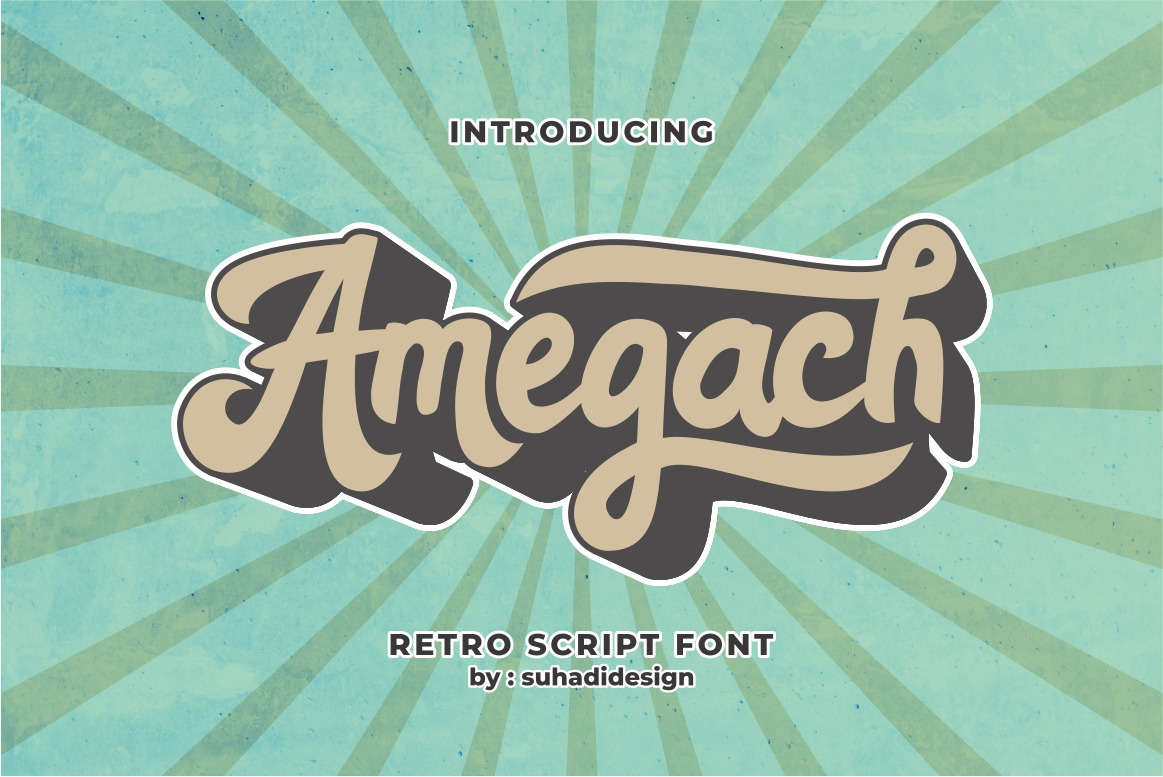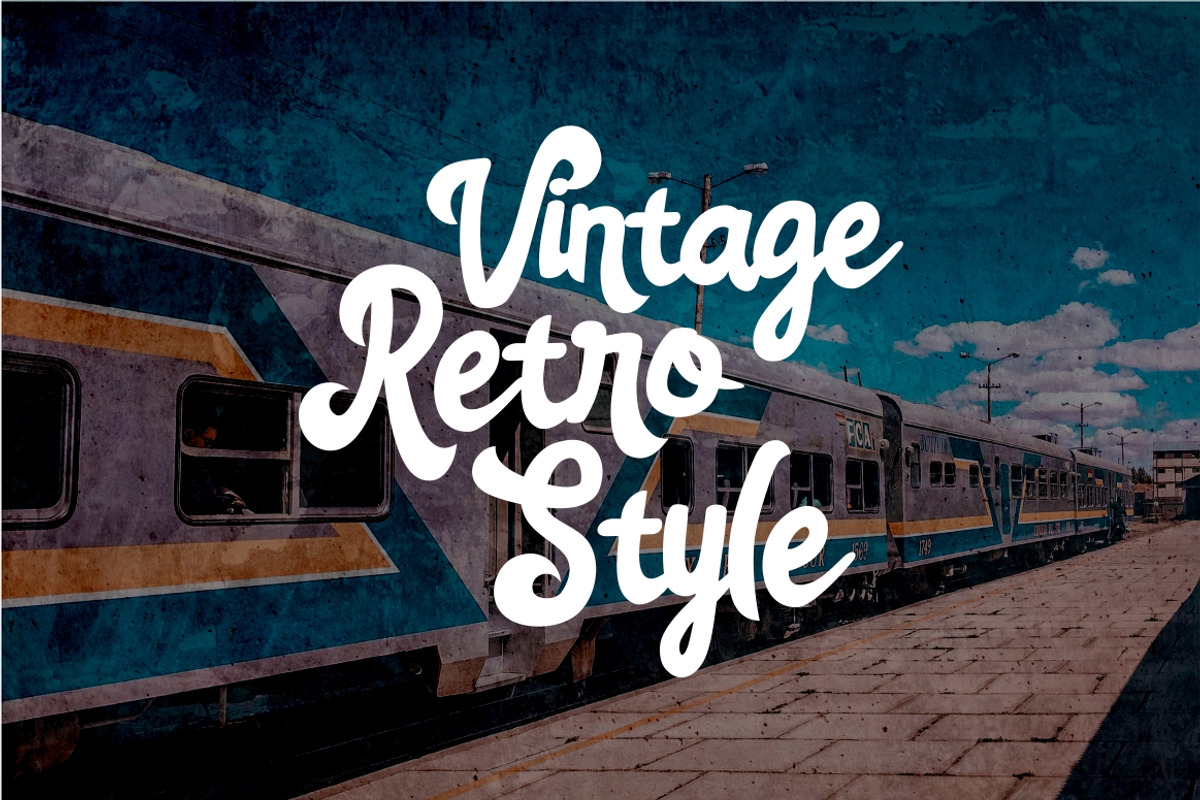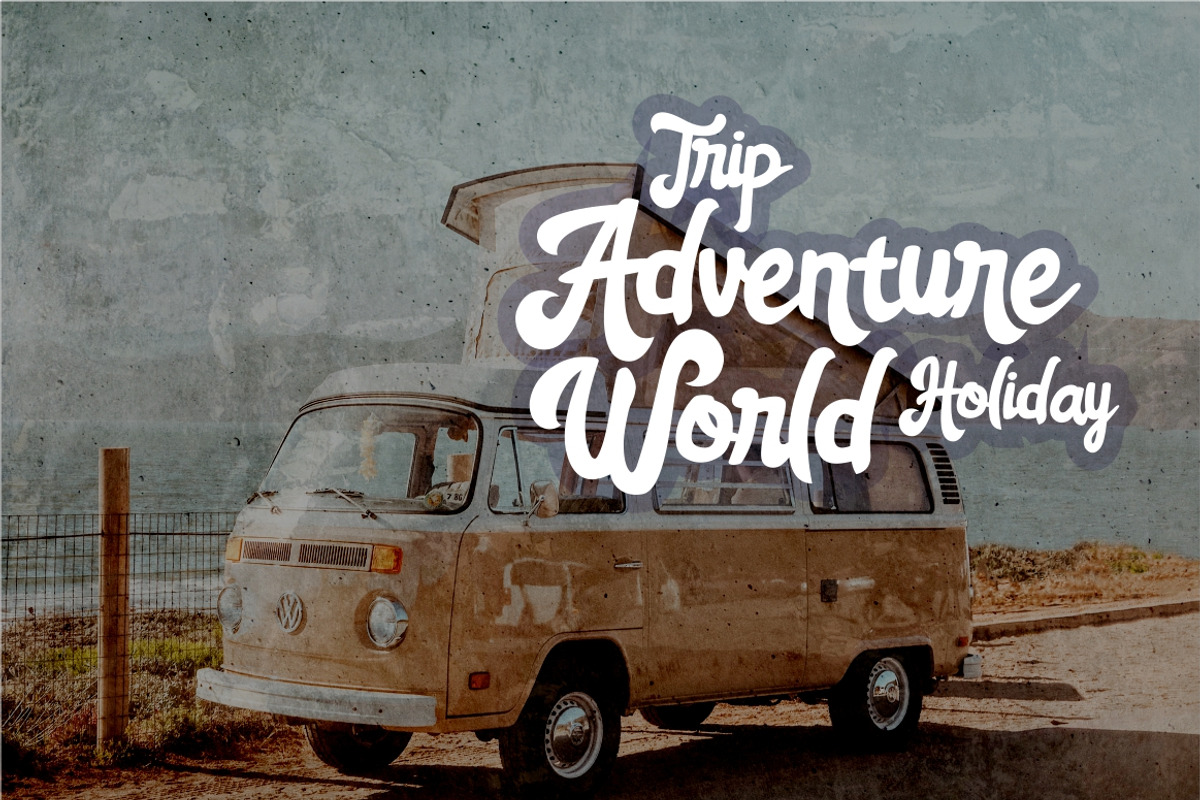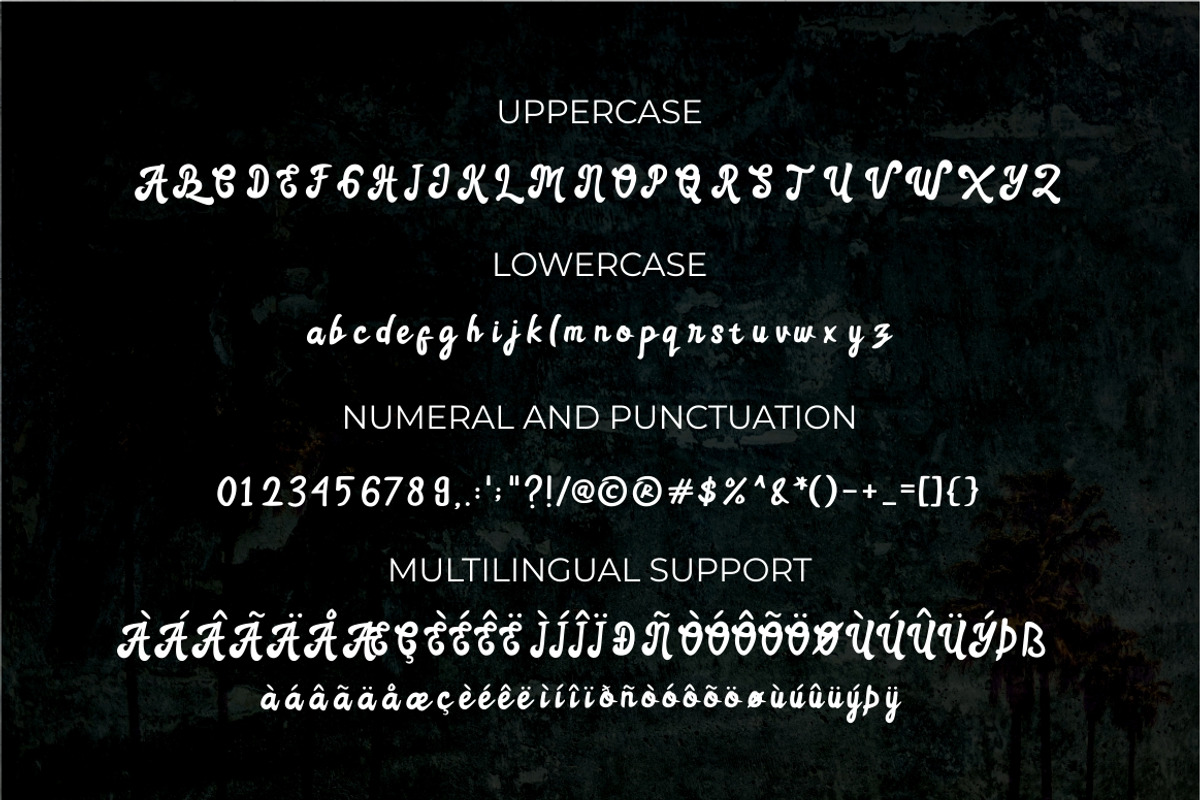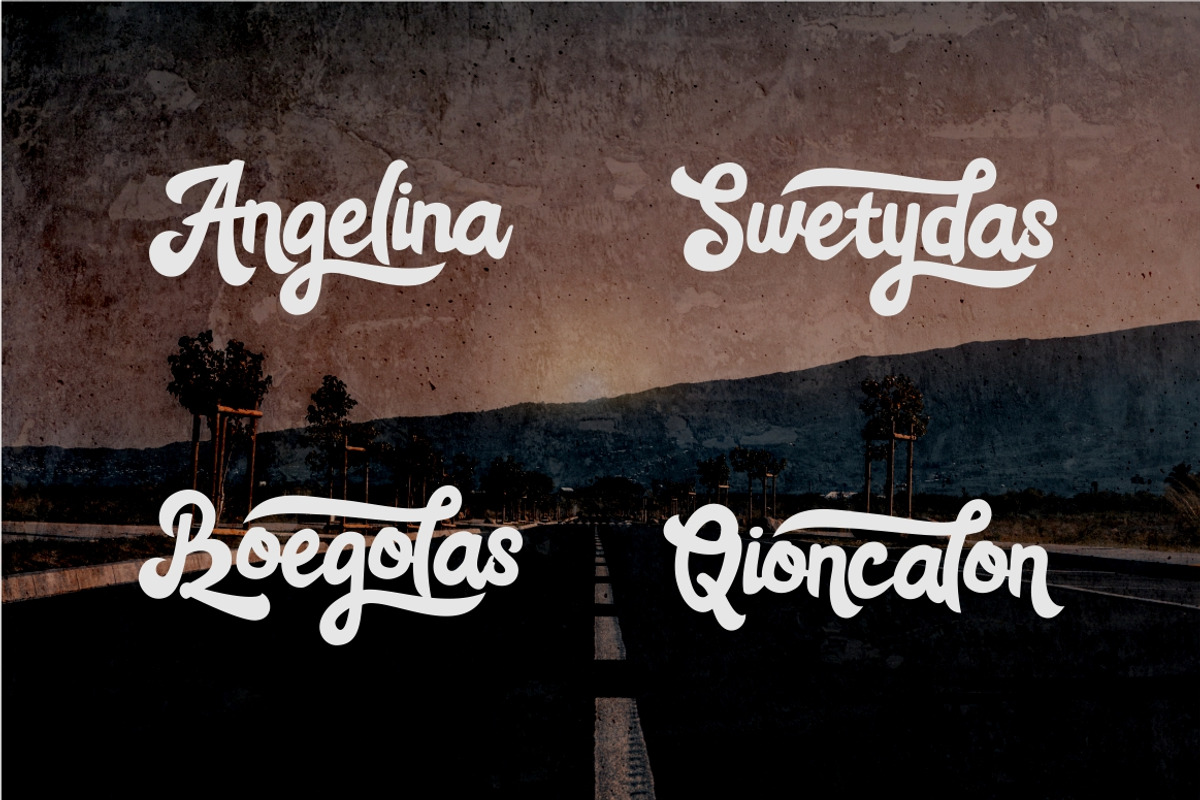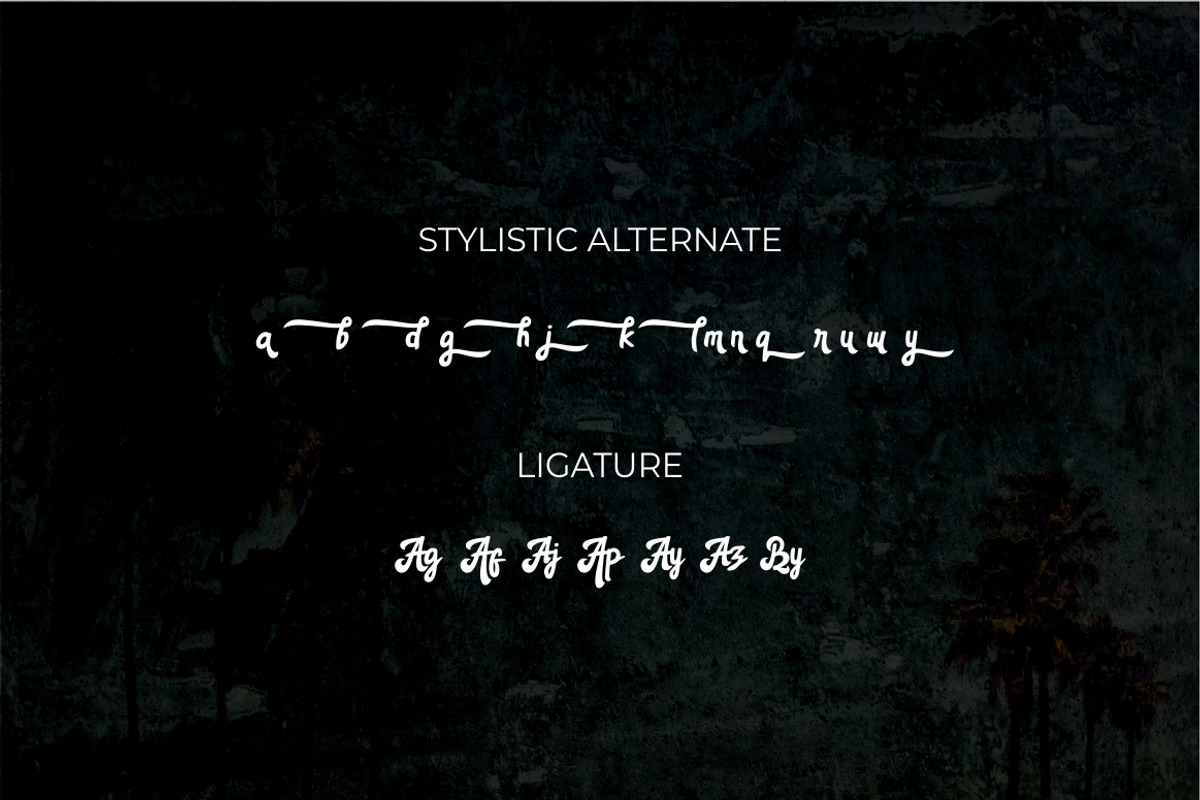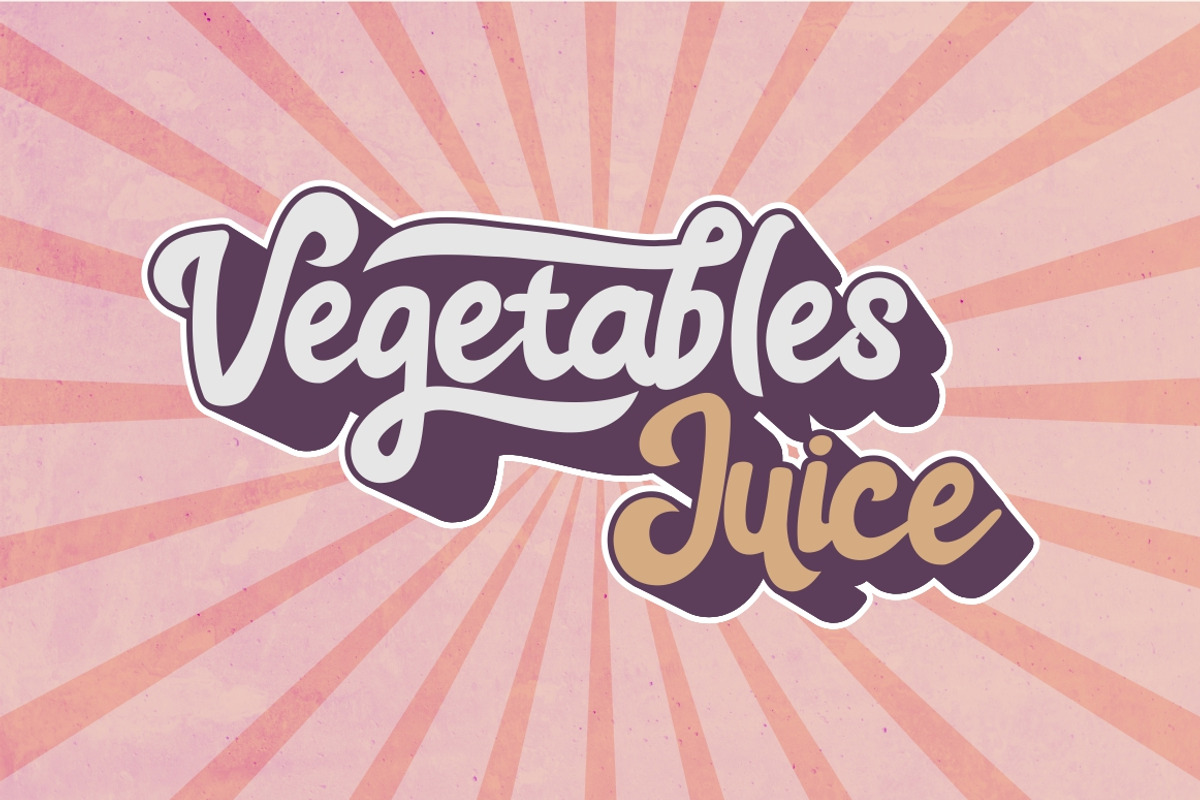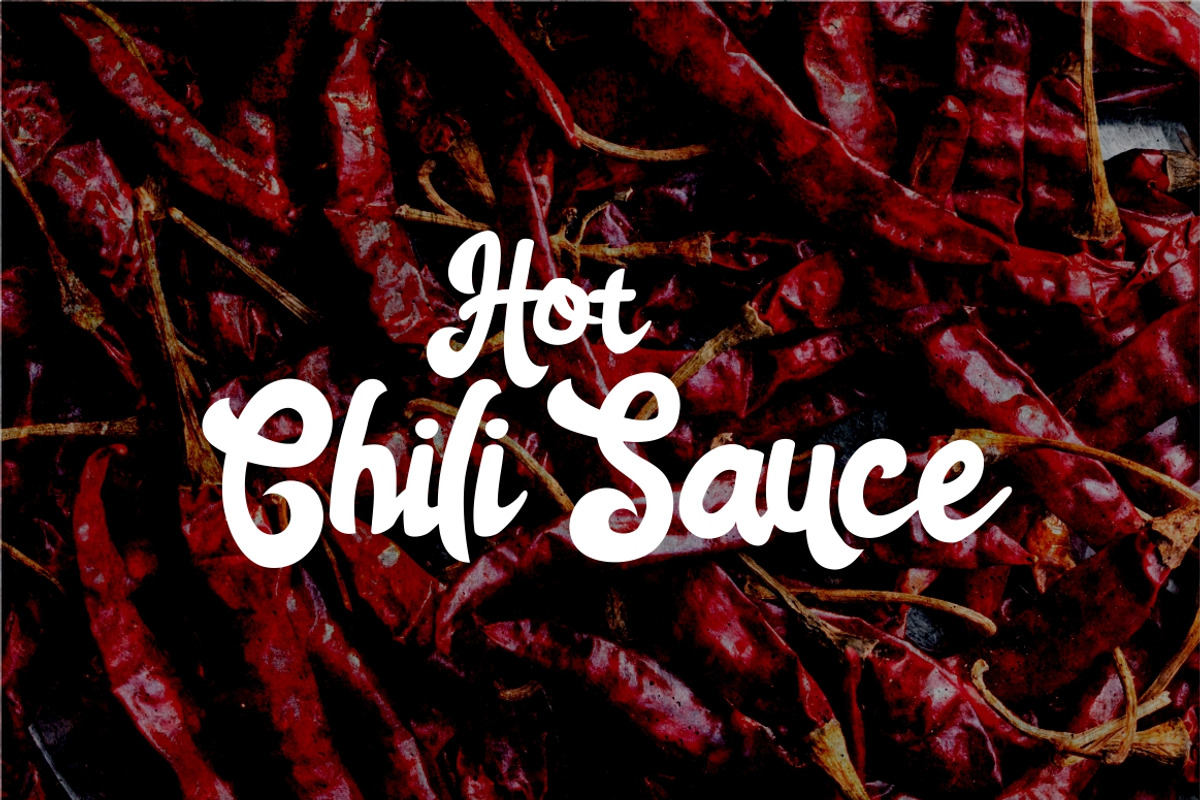
Amegach Vintage Retro Font
Hi Ladies and Gentlemen! According to market demand, fonts tend to be more modern, so I decided to make a retro vintage font based on your view. The Amegach font is a fun and very popular retro script font, coming in a modern style hoping to be accepted by the market. We keep this font looking elegant, classy, easy to read, stylish, attractive and easy to use. Amegach Font is a great choice for vintage, retro designs, logos, food menus, brand names, branding, brands, quotes, album covers, and other projects. The Amegach font is here to take your design to the next level.
The Amegach font style will make you love designing and take advantage of the cool design results for this font. Keep following us for the next font creation update :)
Font Features: • Stylistic alternate lowercase choice • Selected letter ligatures